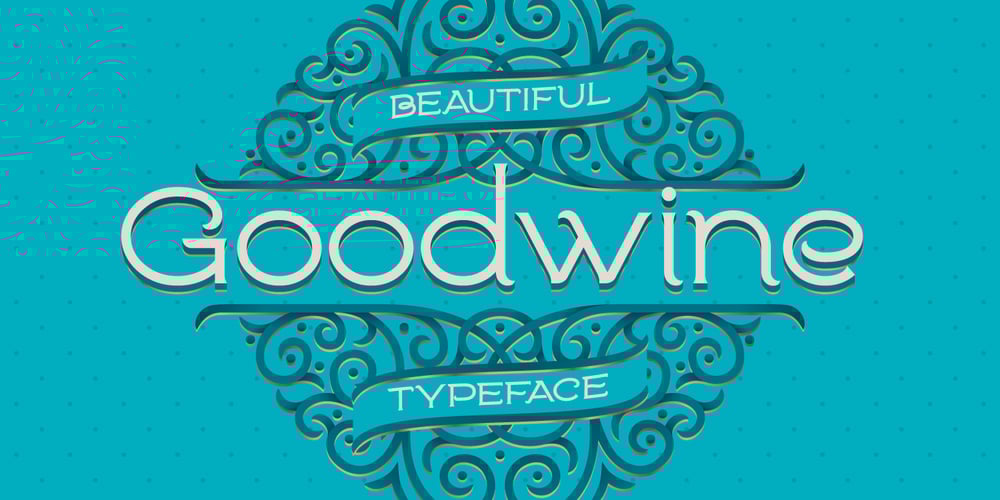
Goodwine Font Family was designed by Gleb Guralnyk and published by Gleb Guralnyk. Goodwine contains 1 styles and family package options. Hi. Presenting a simple and elegant font named “Goodwine” includes lots of characters with many languages support (West European, Cyrillic, etc…).